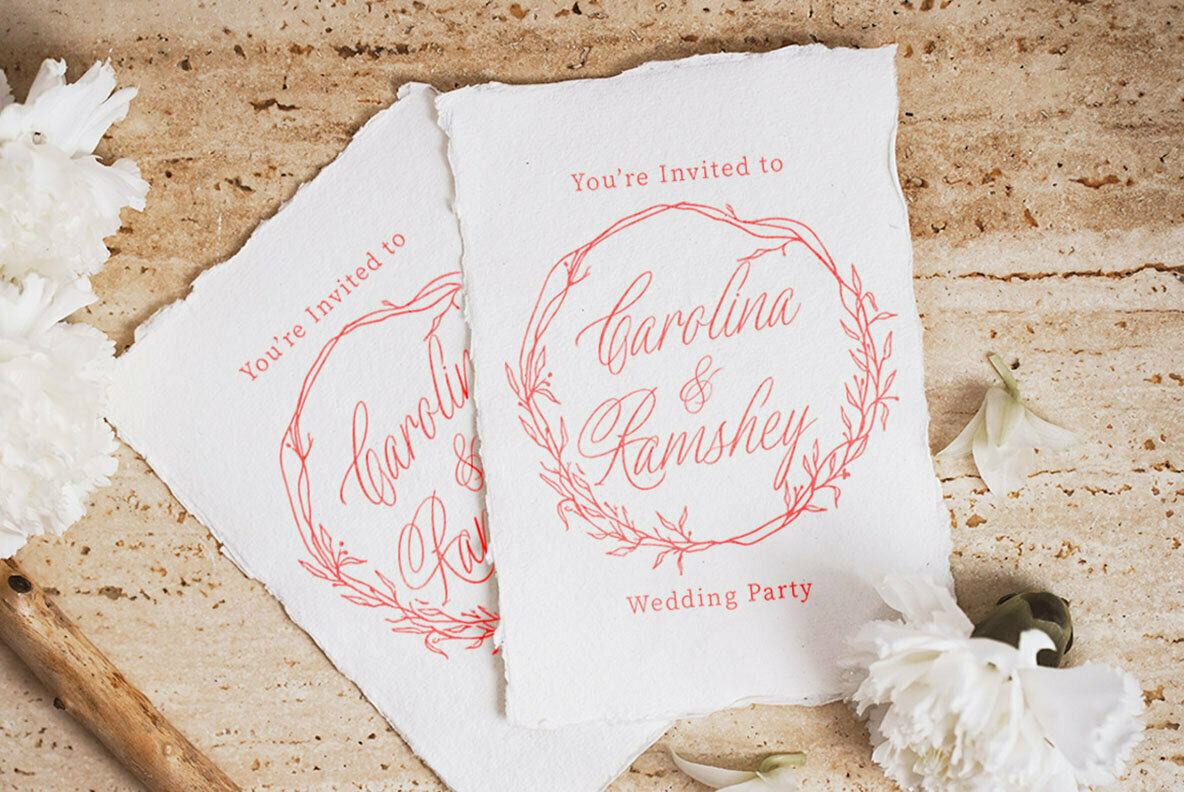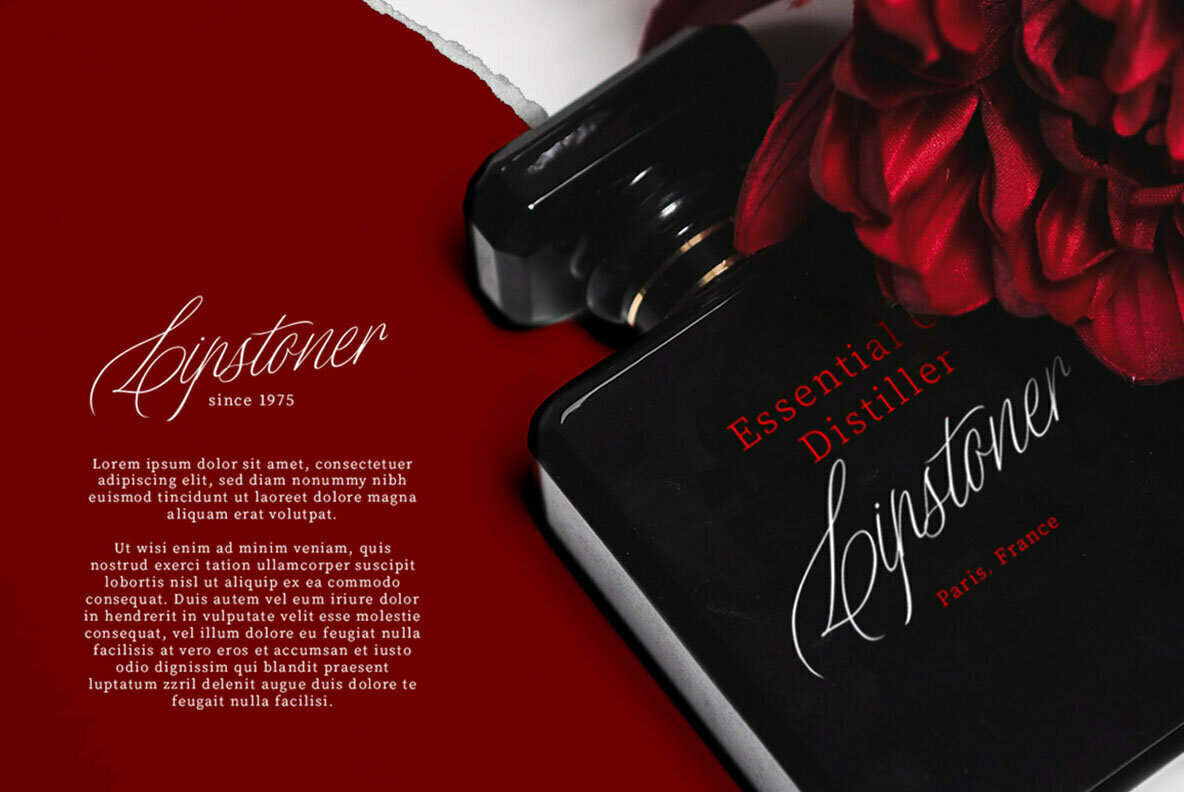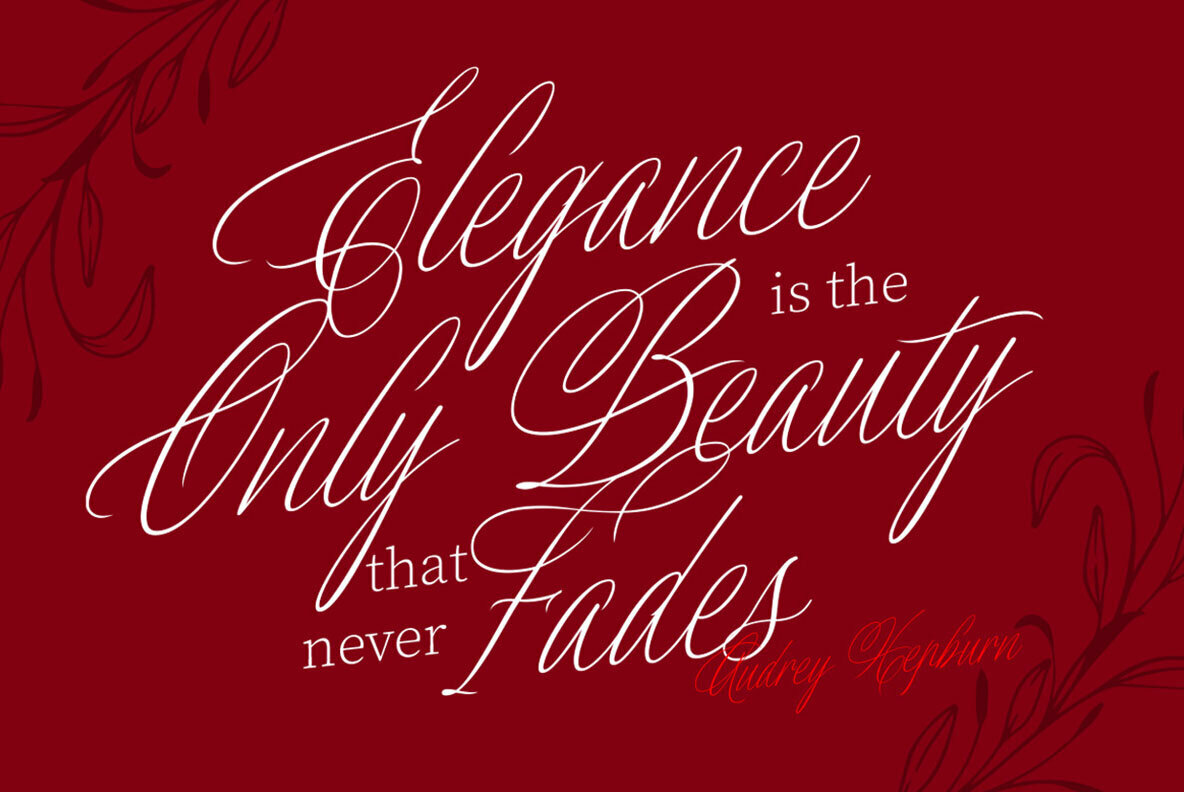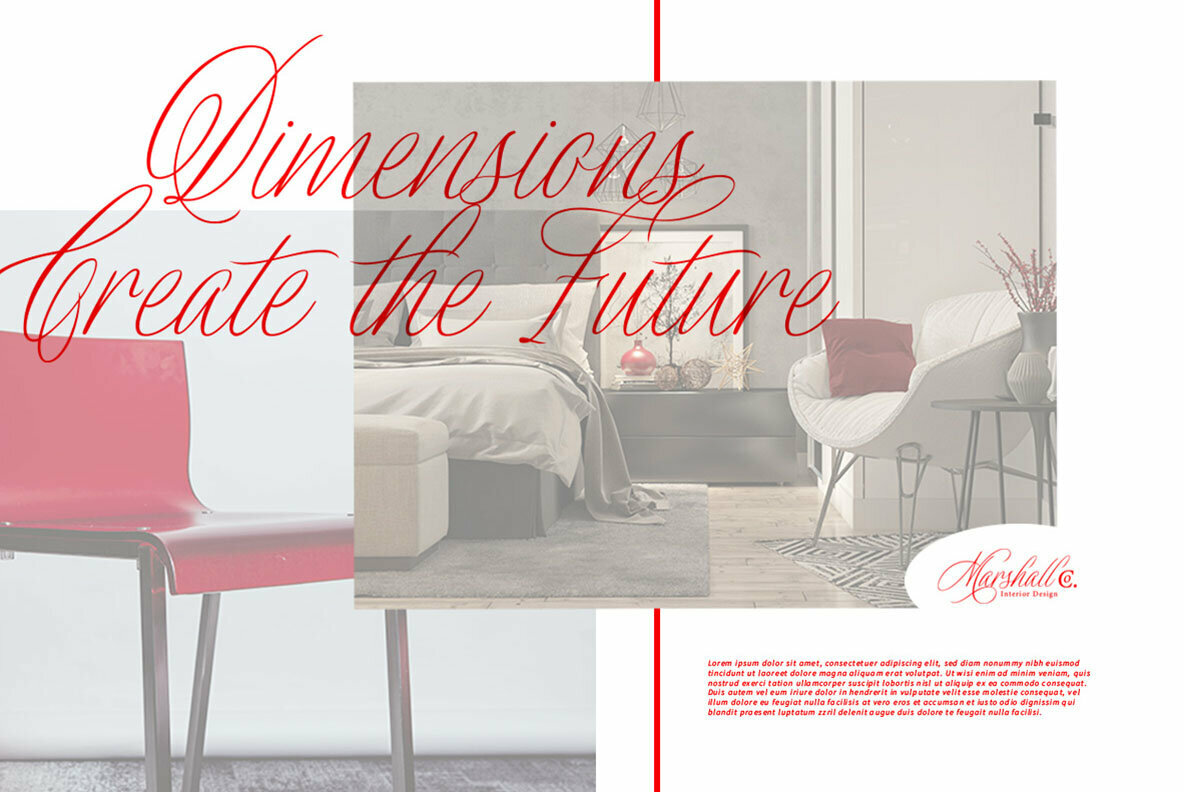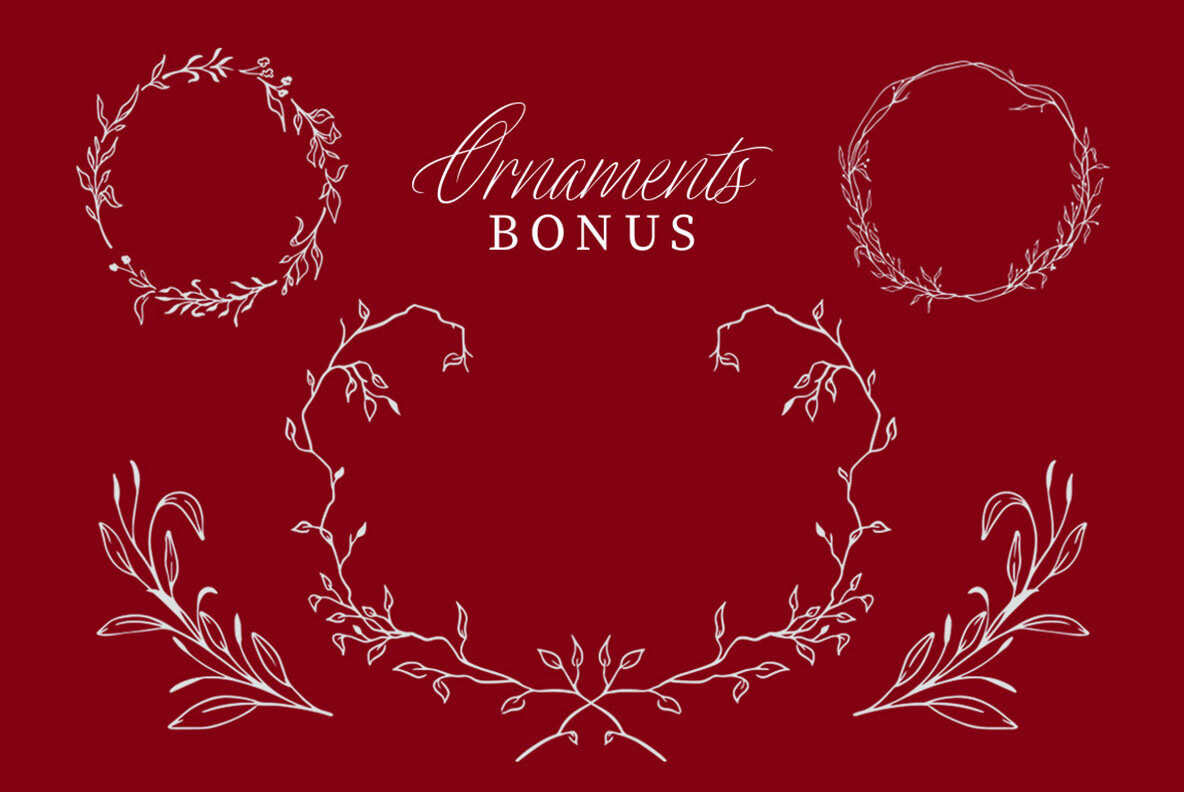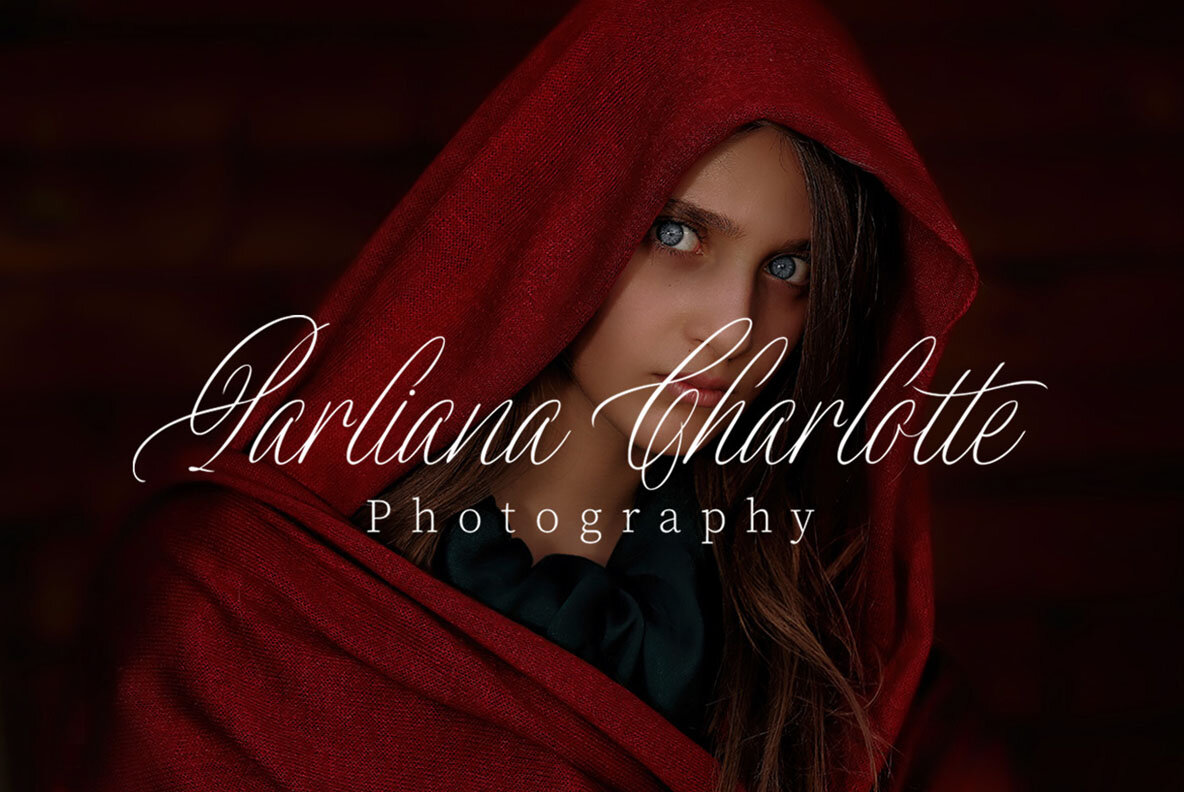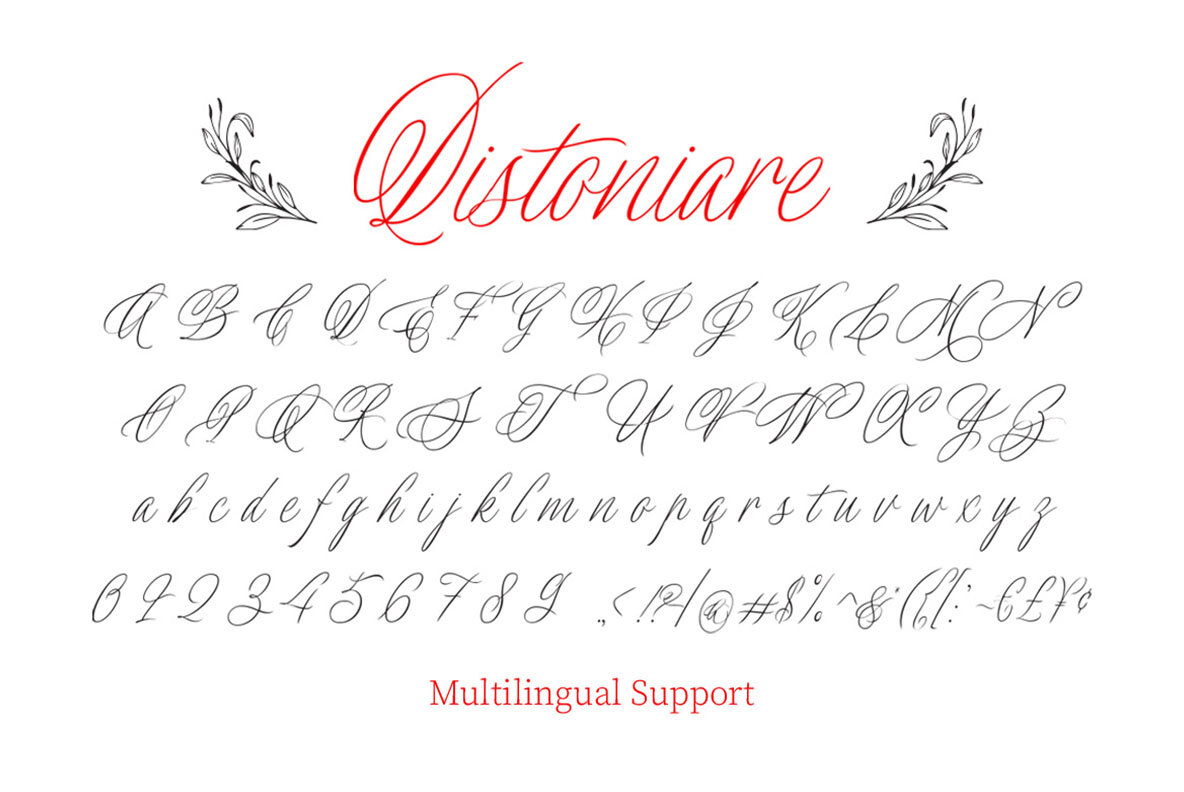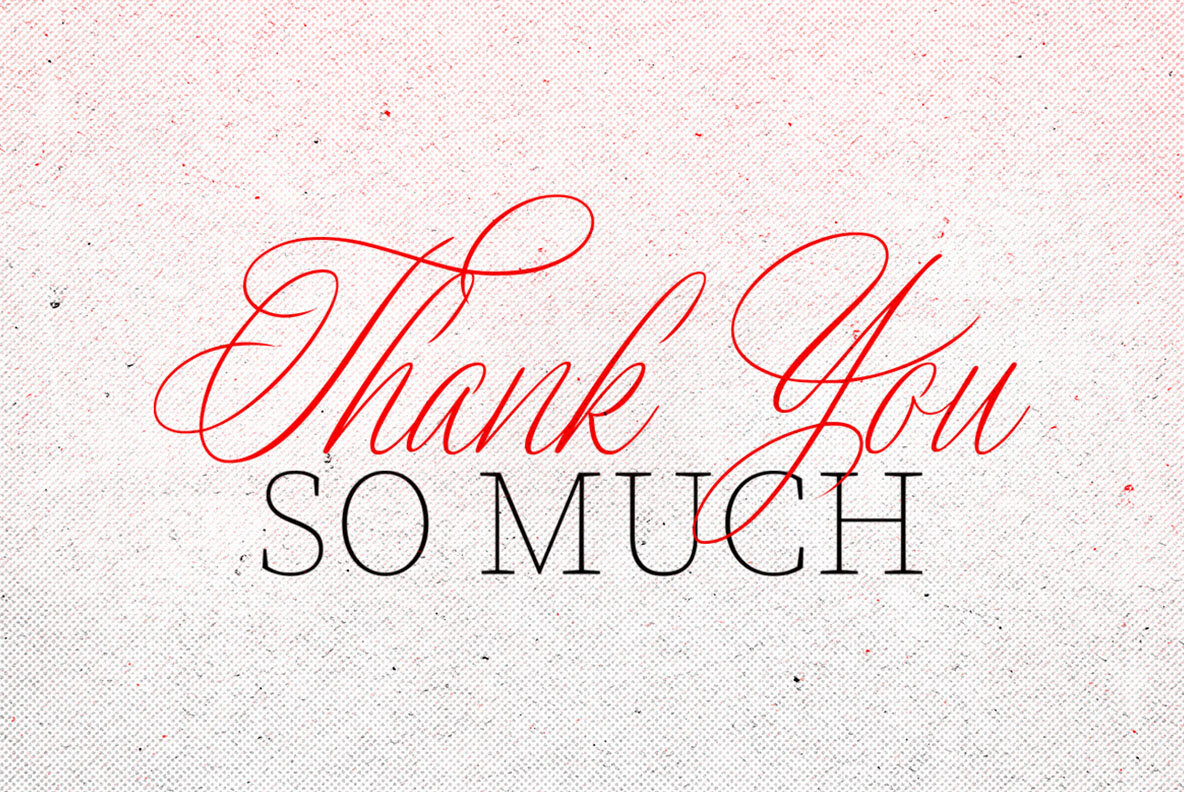
Distoniare Font
Distoniare brings the timeless beauty of handwritten script to your design projects. Capturing the essence of natural penmanship, this font offers a personal touch ideal for formal applications such as logos, invitations, and advertising materials. It seamlessly complements a range of creative endeavors, making it a versatile addition to any designer’s toolkit. Features:Distoniare: Elegant Script for Signature Style